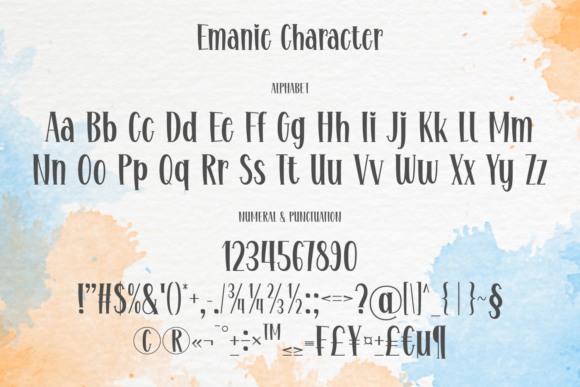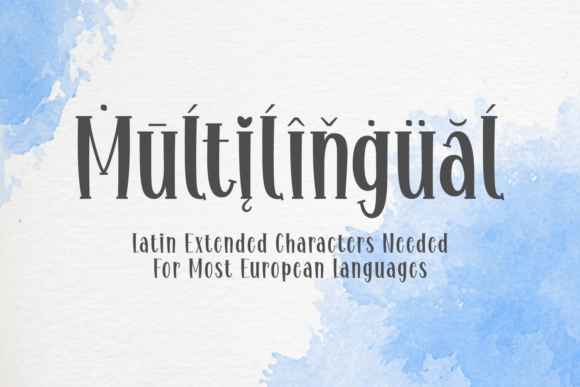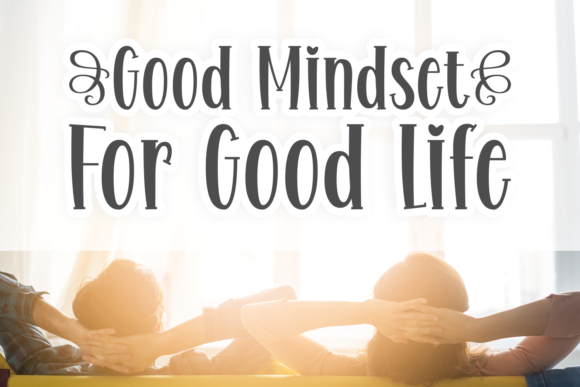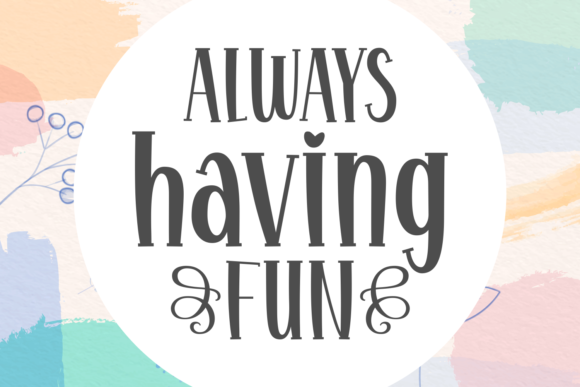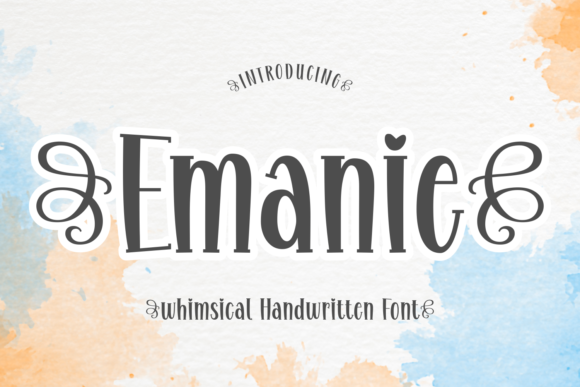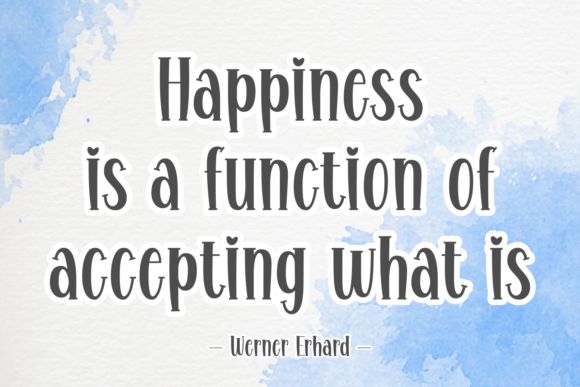
Emanie Font
Emanie is a chic display font, that emanates confidence and versatility. Its stylish alternates and ligatures make this font the perfect match for any project.